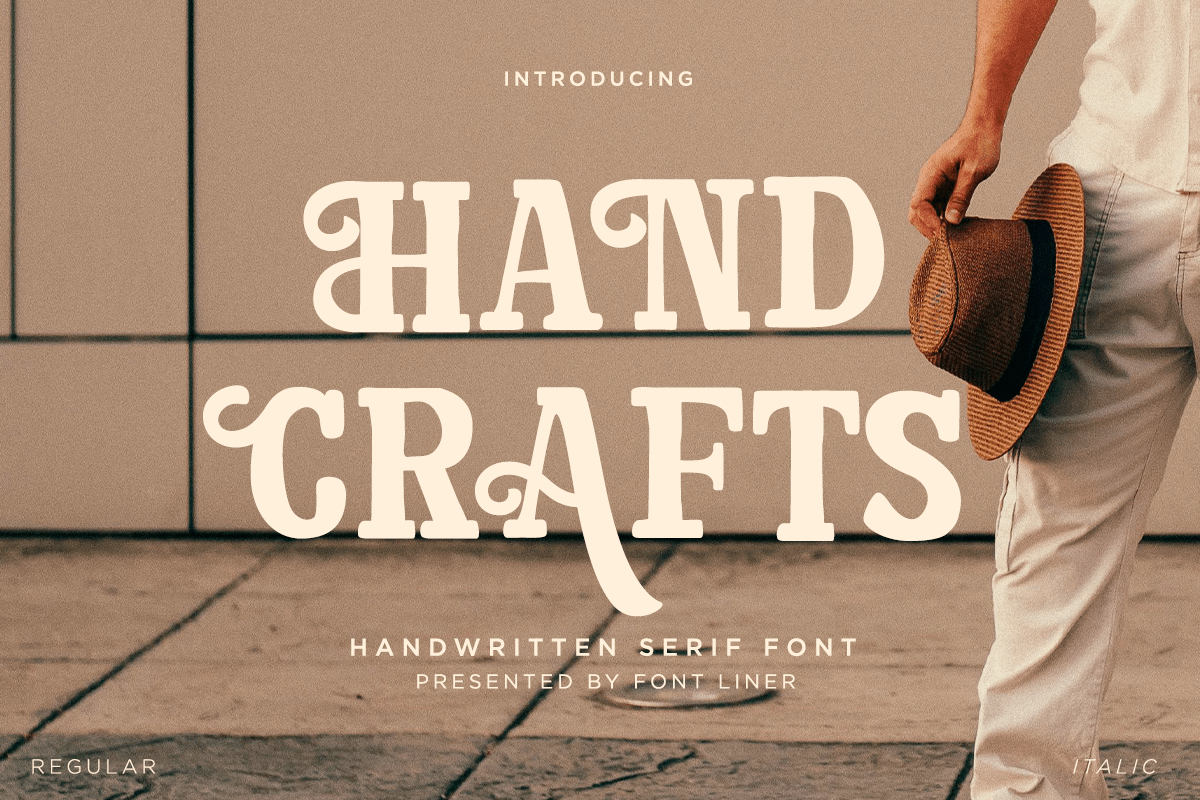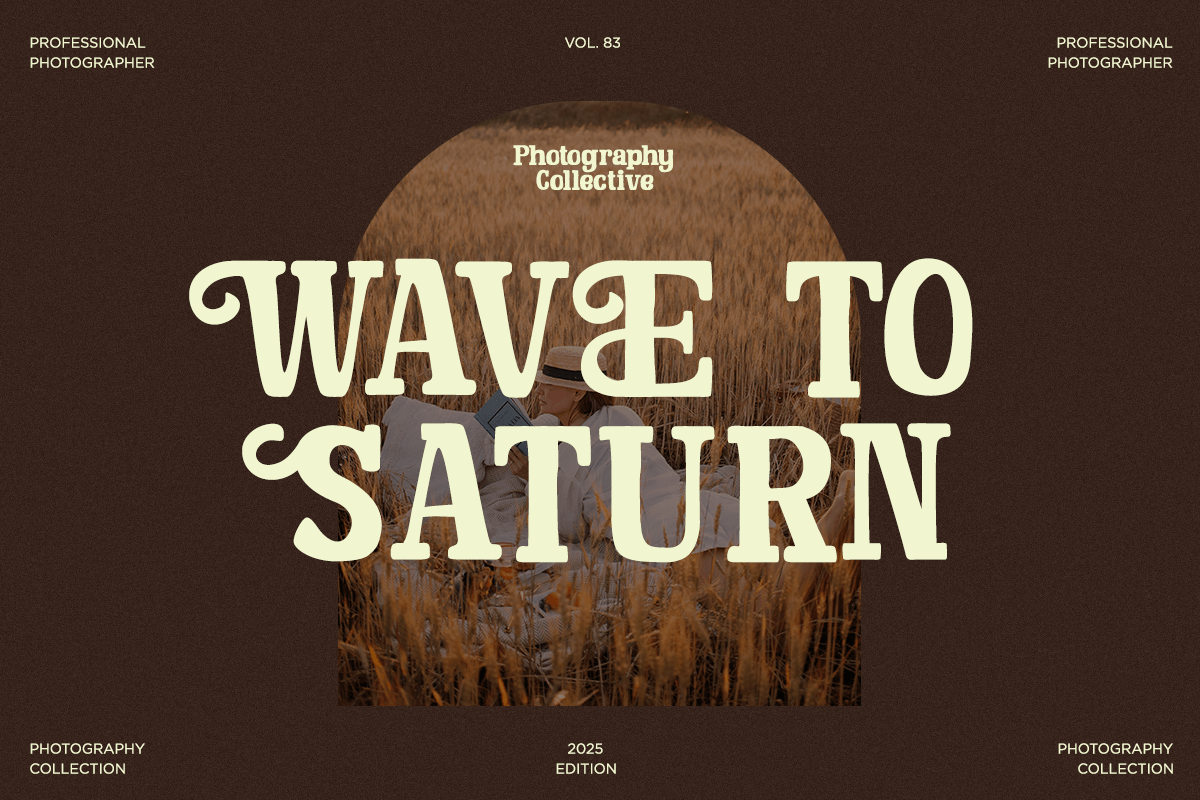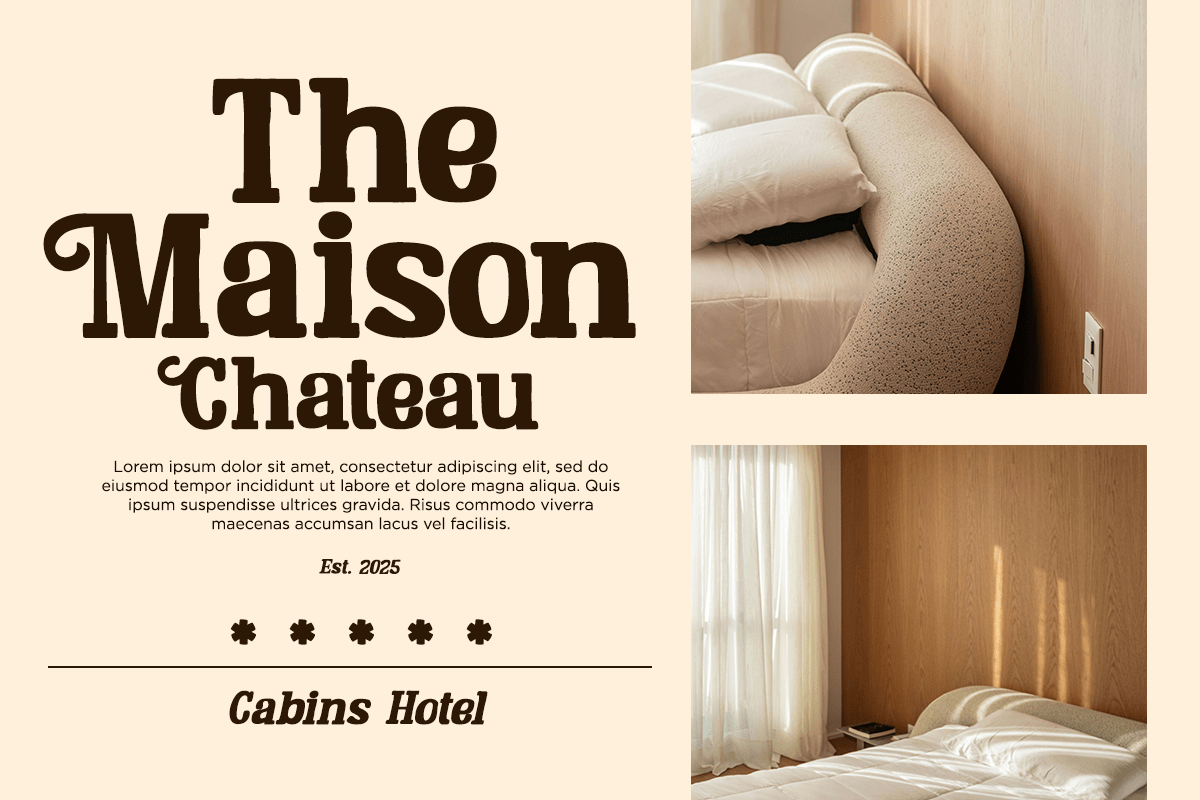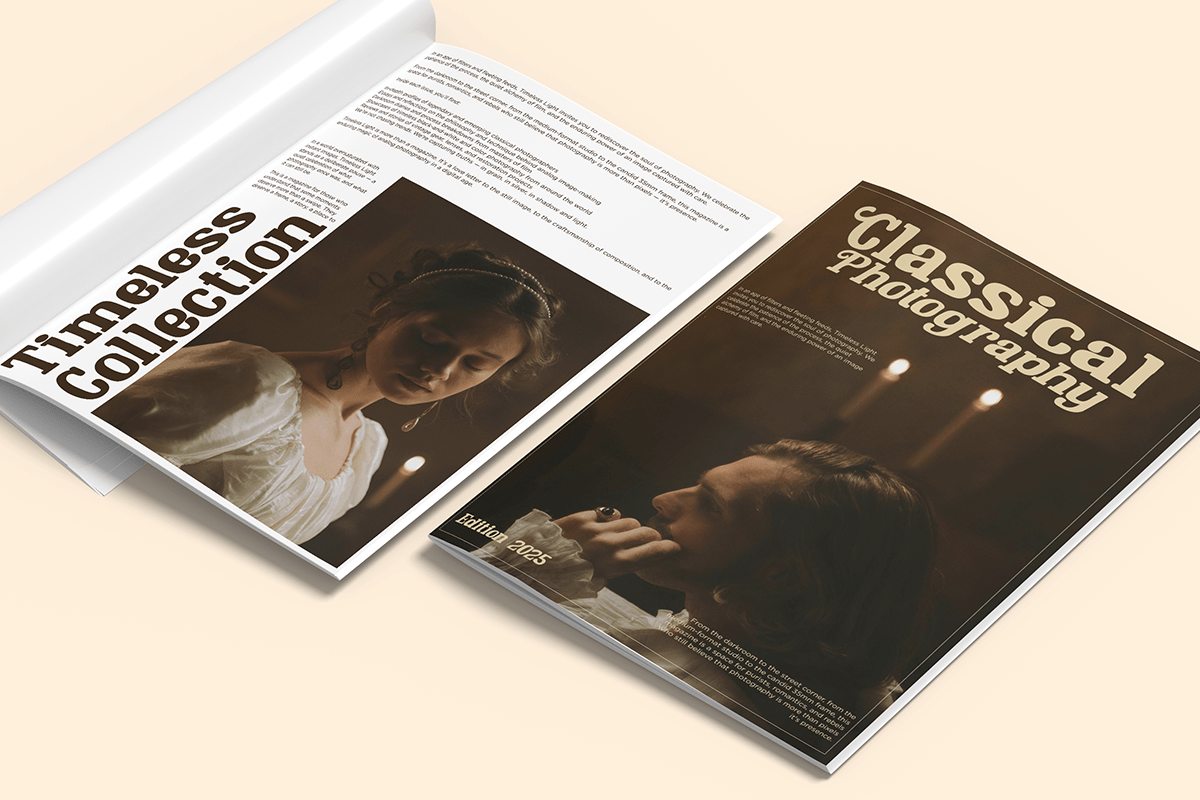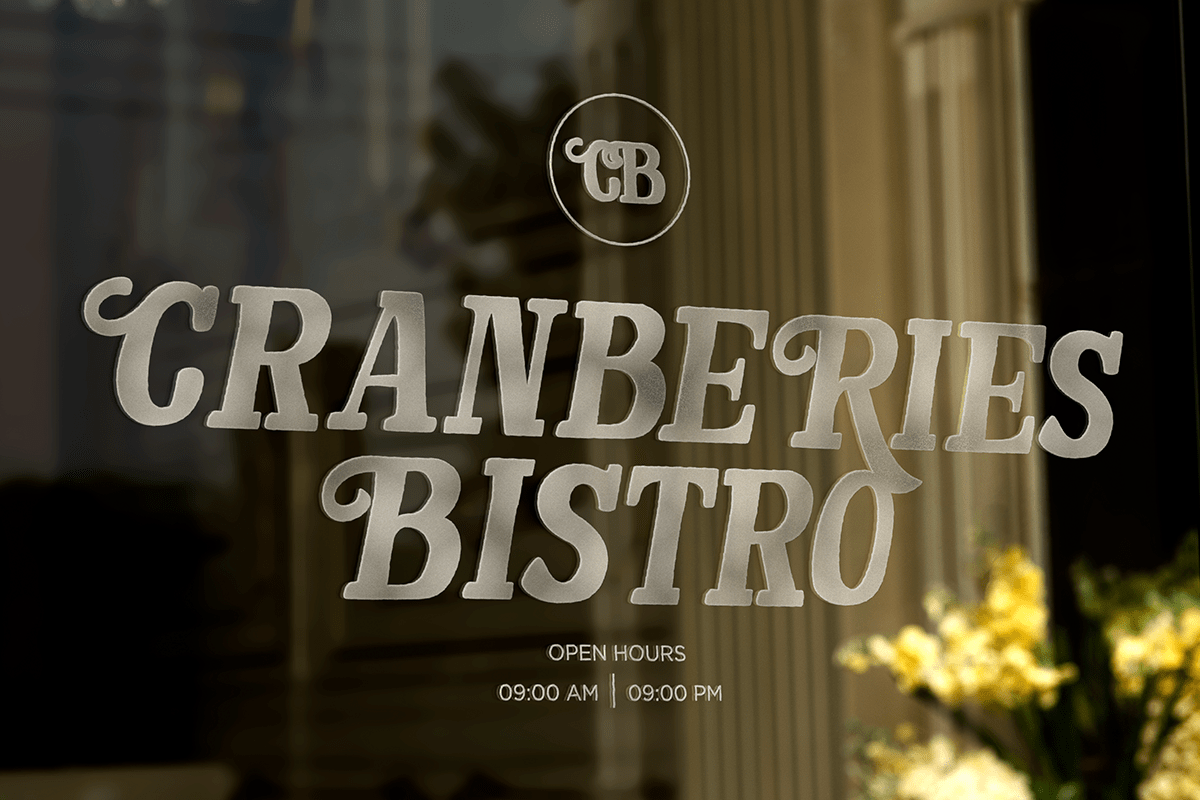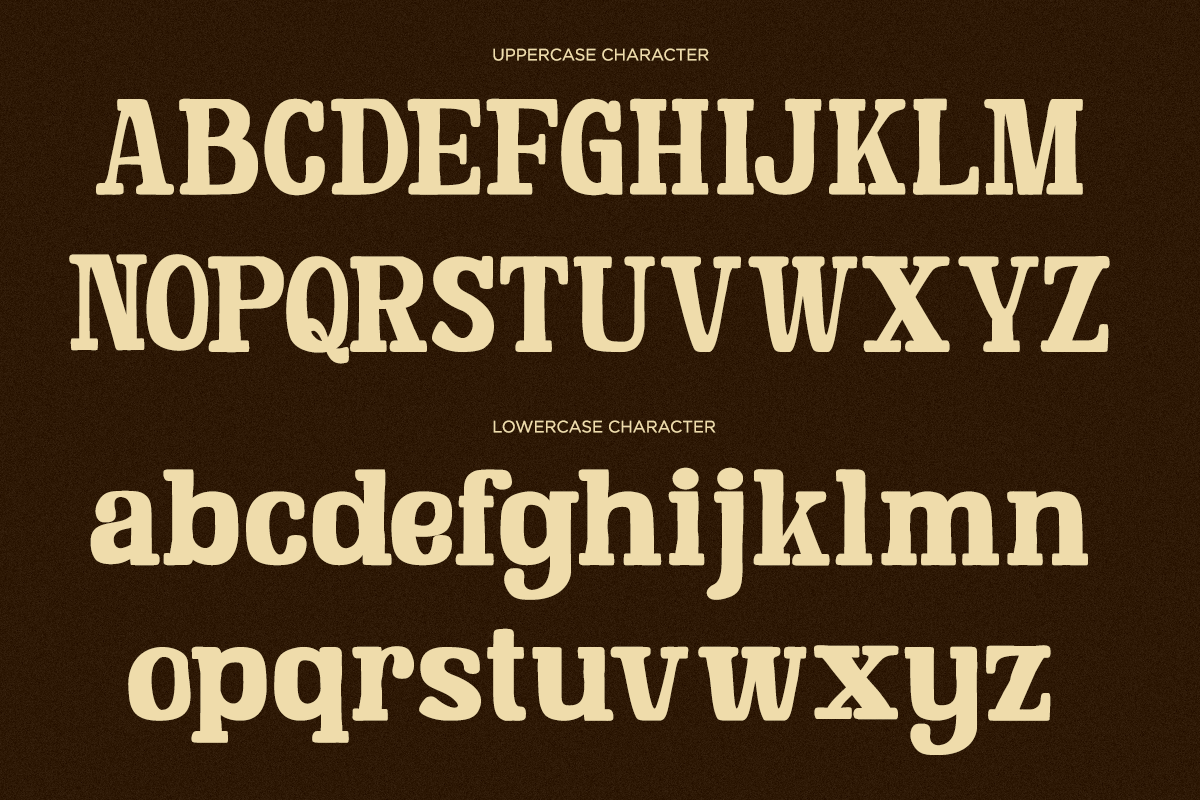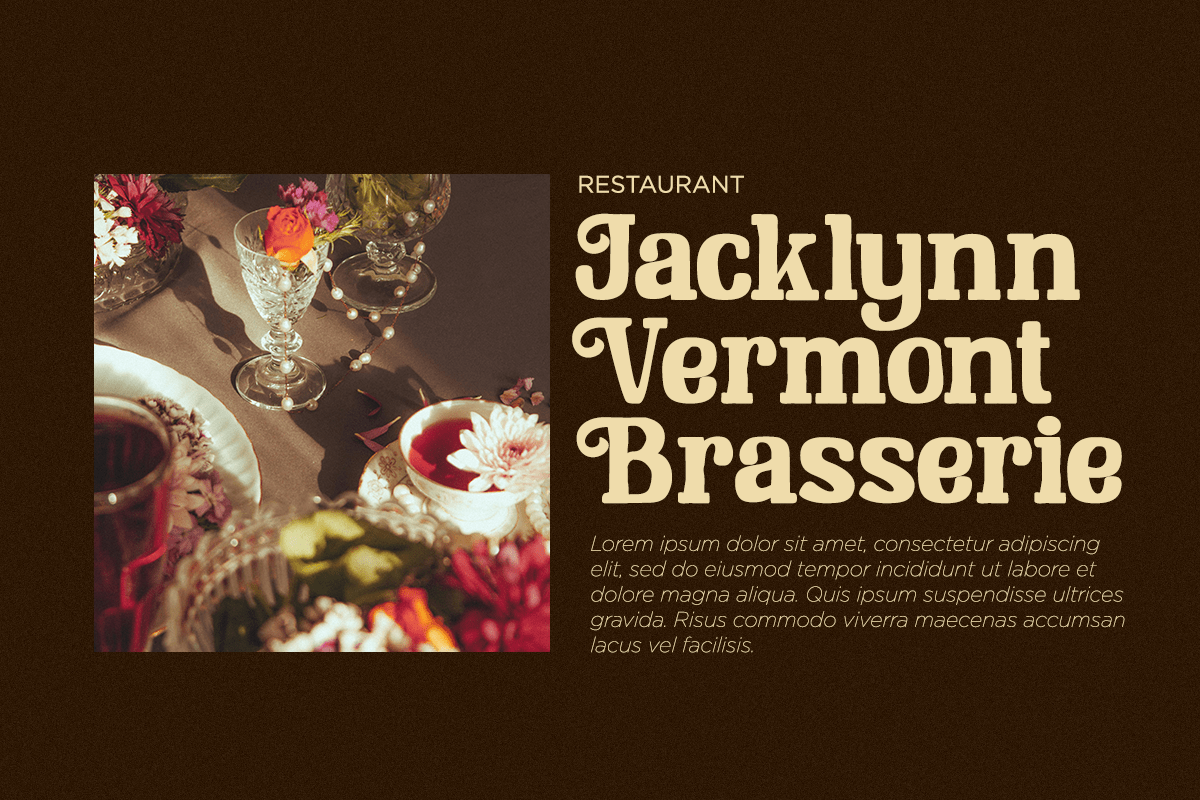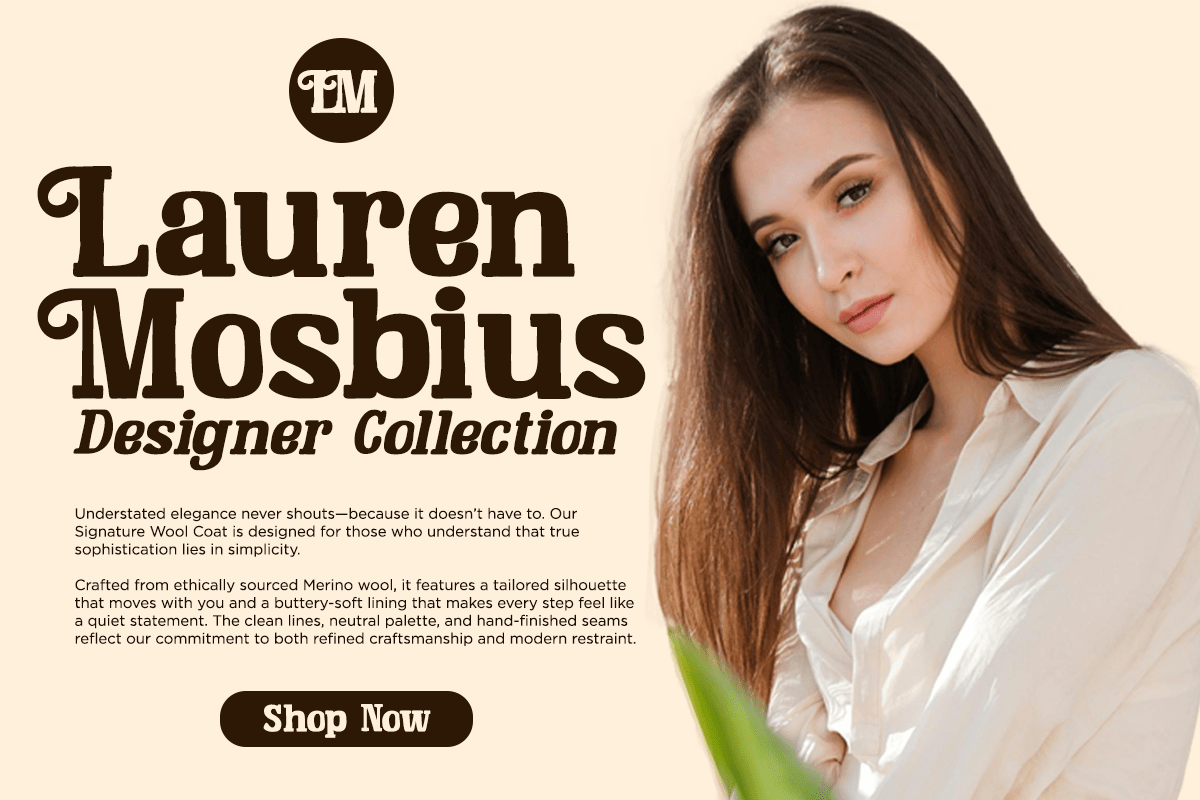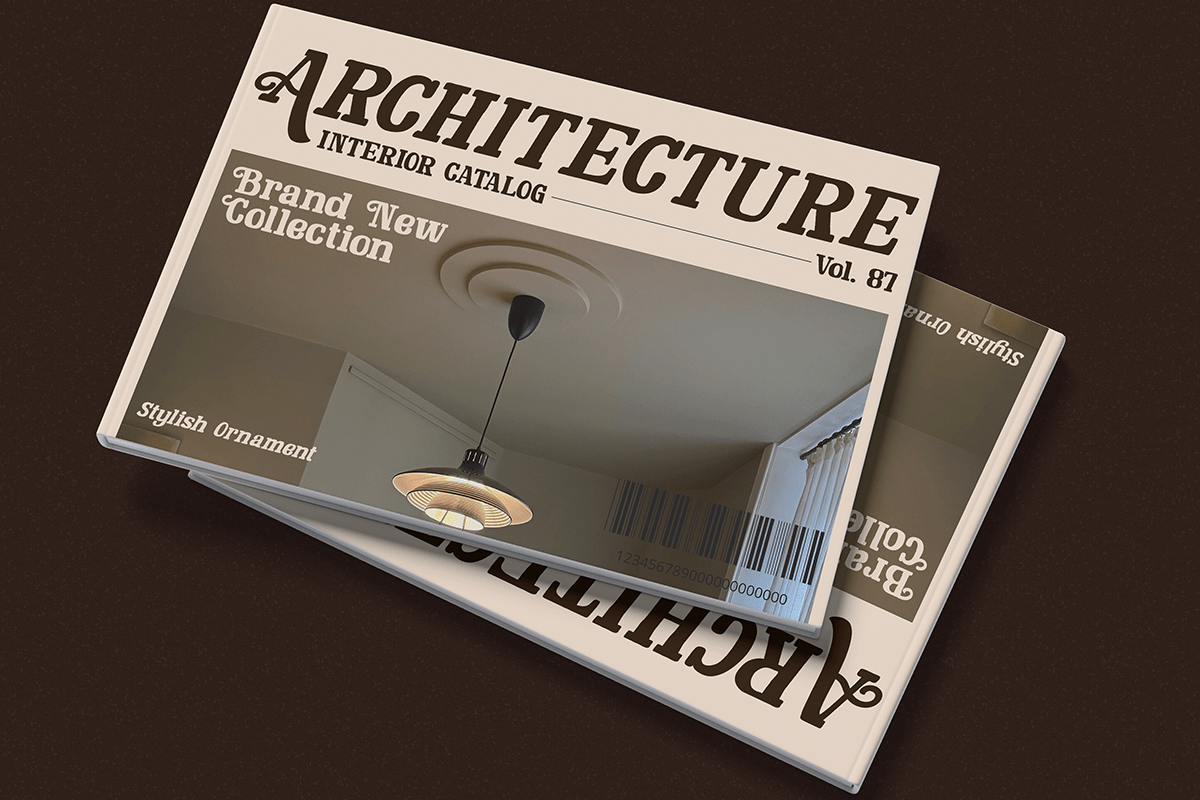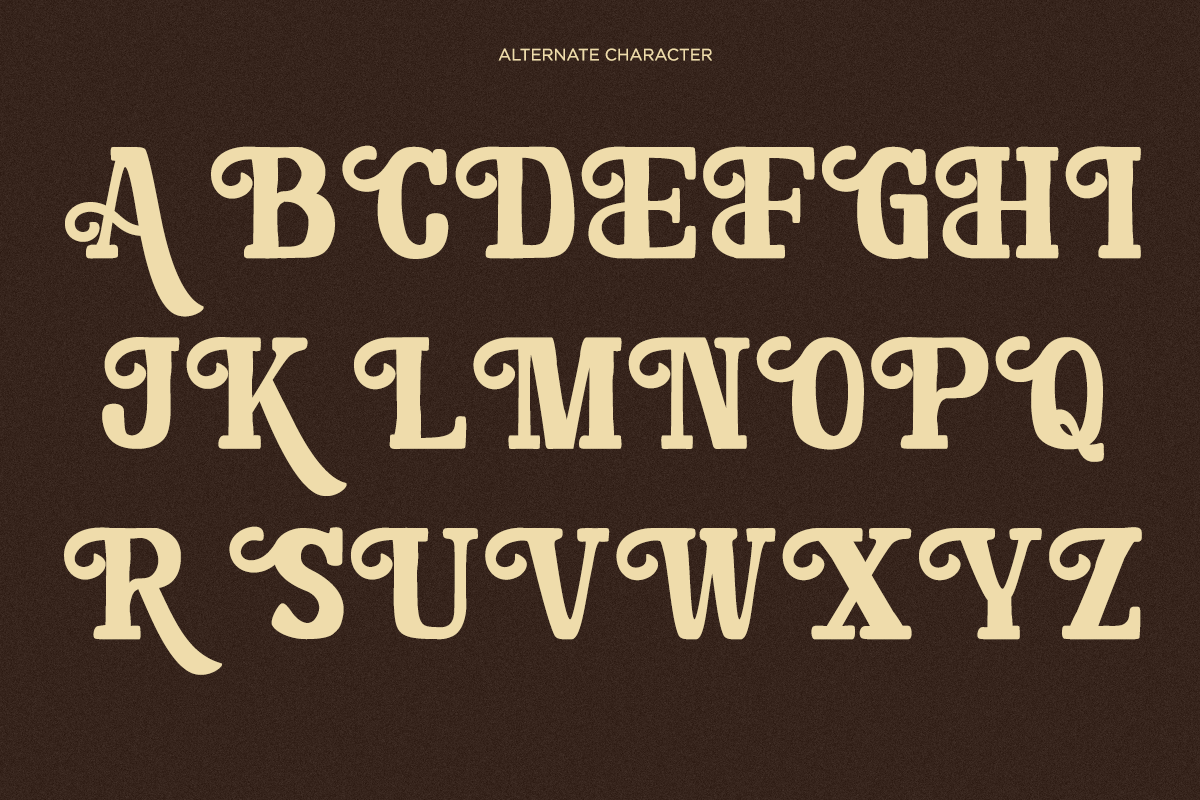
Hand Crafts – Vintage Handwritten Serif Font
Hand Crafts is a vintage handwritten serif font that combines handcrafted charm with timeless elegance. Inspired by traditional artisan lettering and classic print typography, it features distinctive serif details, soft curves, and an organic handcrafted feel. The unique letterforms create a warm, authentic personality, making every headline and logo feel memorable while maintaining excellent readability.
Designed for artisan branding, cafés, restaurants, boutique shops, packaging, editorial layouts, lifestyle brands, hotels, architecture studios, product labels, magazines, posters, and premium marketing materials, Hand Crafts brings a refined vintage aesthetic to both print and digital projects. Whether you’re creating a handcrafted logo, elegant packaging, or editorial headlines, this font delivers a sophisticated yet approachable visual identity.
Hand Crafts includes uppercase and lowercase characters, stylistic alternates, multilingual support, numerals, punctuation, and symbols, providing everything needed for professional typography. From luxury branding and boutique businesses to hospitality, creative agencies, and artisanal products, Hand Crafts is the perfect handwritten serif font for designers seeking authenticity, elegance, and timeless style.
– Stylistic alternates
– Uppercase, Lowercase & Ligatures